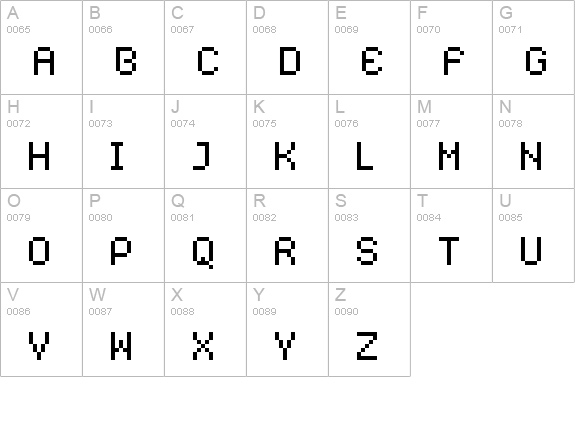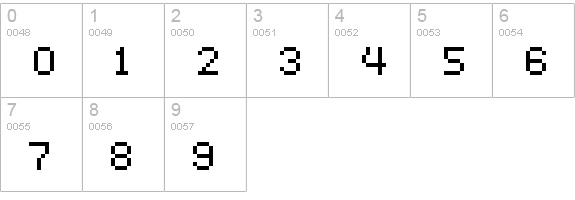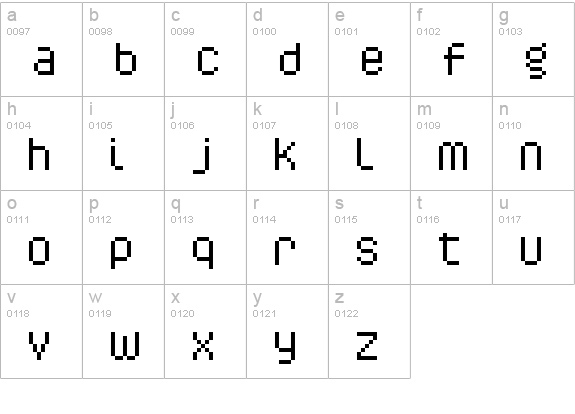
CALIPER-777RG Font Details
CALIPER-777RG font is a modern and elegant typeface that exudes sophistication and professionalism. With its sleek lines and distinctive design, this font is perfect for a wide range of design projects, from branding to editorial design. The CALIPER-777RG font is versatile and can be used for both headings and body text, making it a great choice for any design project. The best part about CALIPER-777RG font is that it is completely free to download. You can easily access this stylish font at FontsMarket.com and start using it in your projects right away. Whether you're working on a website design, a flyer, or a business card, the CALIPER-777RG font will add a touch of sophistication and class to your work. Don't miss out on the opportunity to enhance your designs with the CALIPER-777RG font, available for free download at FontsMarket.com. Elevate your projects with this modern and stylish typeface today!